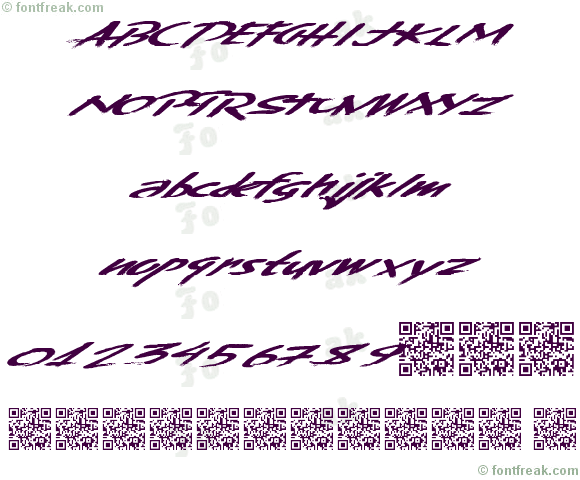
KentuckyBourbon
About KentuckyBourbon
KentuckyBourbon by XEROGRAPHER FONTS is a captivating display font that effortlessly combines elegance with a touch of rustic charm. This font falls into the script category, characterized by its fluid, handwritten style that exudes warmth and personality. Its unique strokes feature a moderate weight with varying contrast, providing an eye-catching visual appeal. The letters are well-spaced, ensuring readability while maintaining a lively, dynamic flow that enhances the overall design.
This font is perfect for a variety of use cases, making it an excellent choice for graphic designers and small business owners alike. It shines in applications such as wedding invitations, where its romantic flair can set the perfect tone for a special day. KentuckyBourbon also works beautifully for restaurant menus, offering a casual yet sophisticated touch that can entice diners. Movie posters can benefit from its distinctive character, drawing attention and conveying a sense of narrative. Additionally, it serves well in branding for artisanal products, where the handcrafted feel aligns with the ethos of quality and tradition.
The target audience for KentuckyBourbon includes graphic designers, content creators, and small business owners looking to elevate their projects with a font that stands out. Whether you're crafting promotional materials or designing personal stationery, this font adds a unique flair that engages viewers.